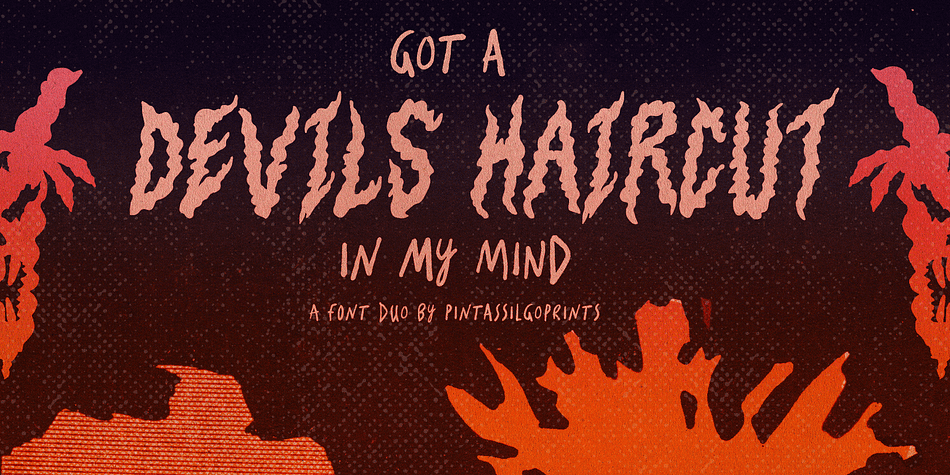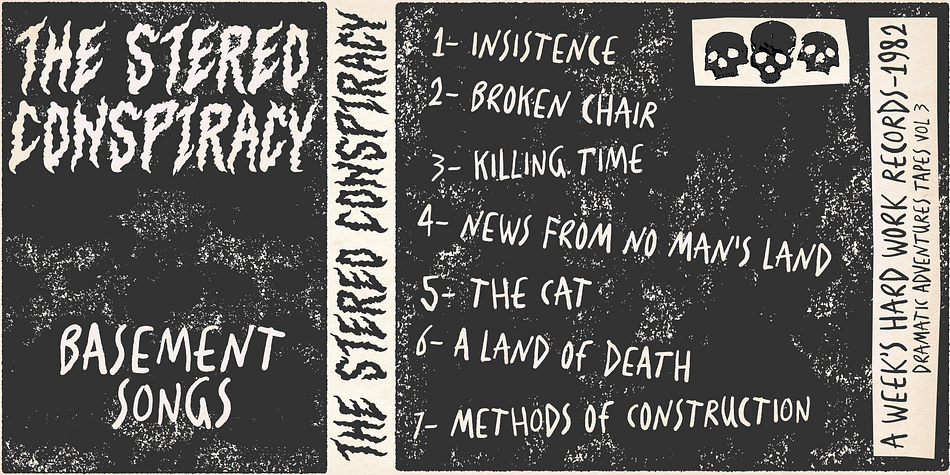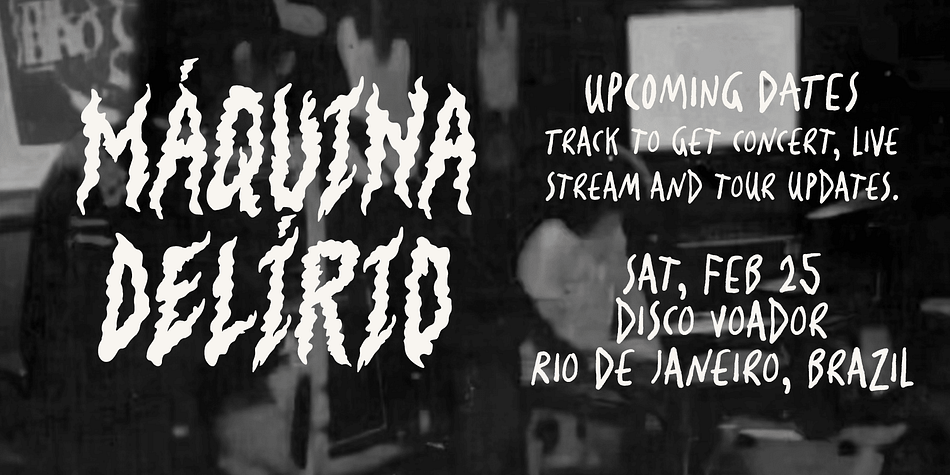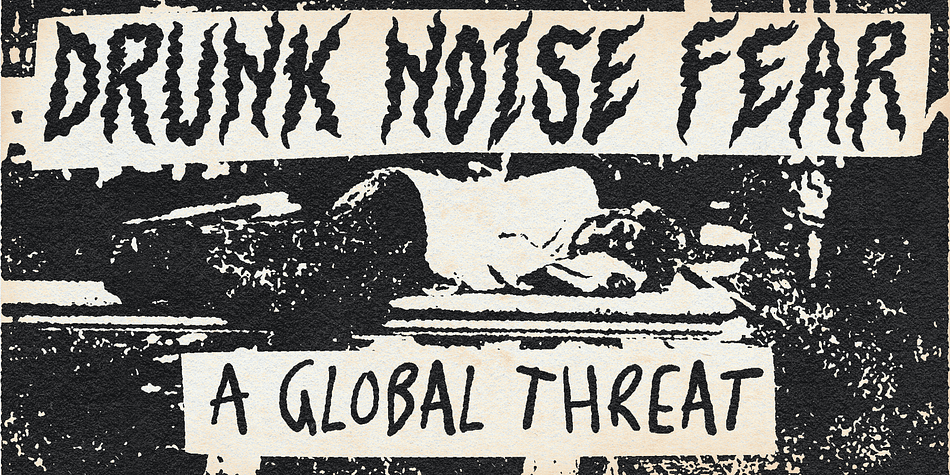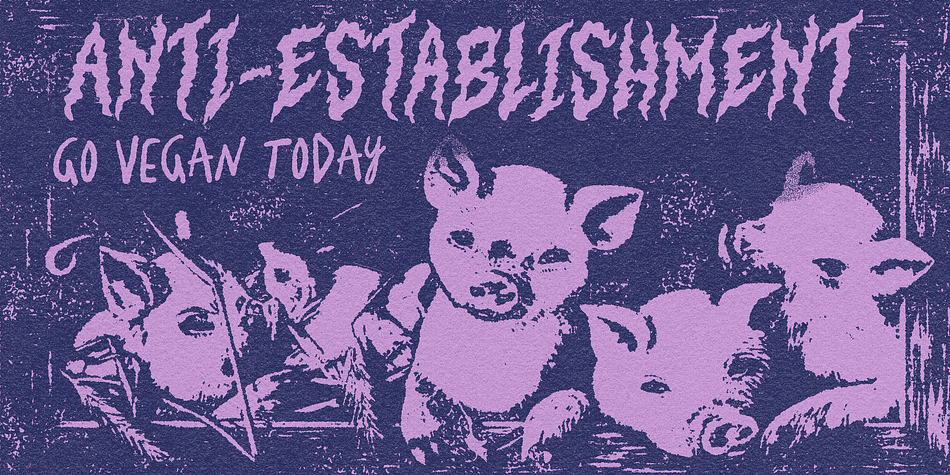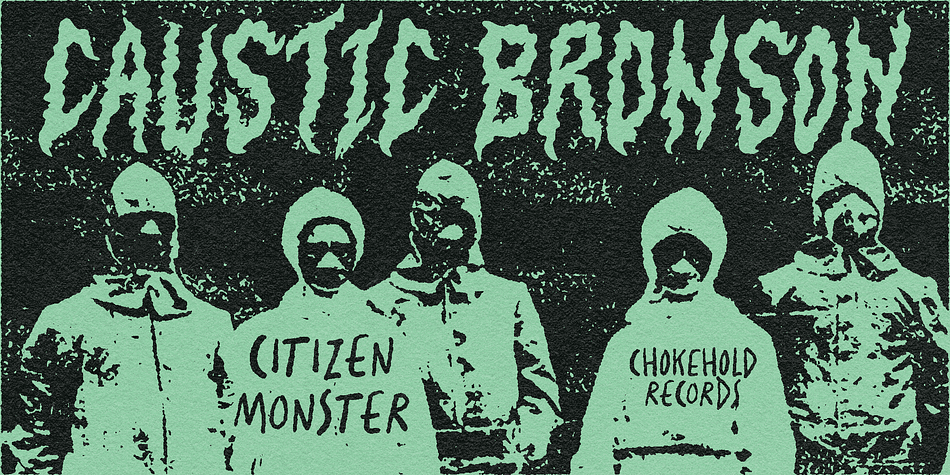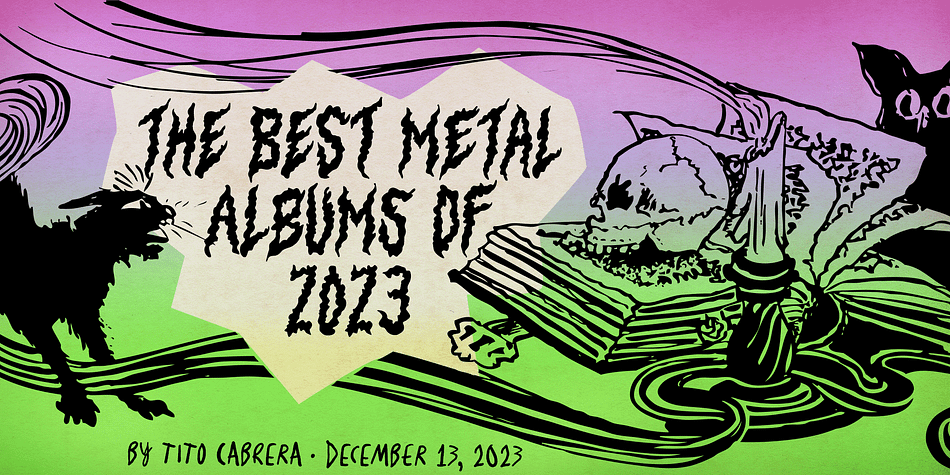
Designed by Ricardo Marcin and Erica Jung, Devils Haircut is a hand display and hand drawn font family. This typeface has two styles and was published by PintassilgoPrints.
Devils Haircut is an explosive font duo, consisting of two completely different styles, creative and expressive in their own way, with a touch of punk and counter-culture aesthetic. Together they make a decidedly eye-catching pair and a rad option for numerous display moods, from album covers to food packaging, from title screens to editorial pages.
Both fonts are all caps with different designs stored on upper- and lower-case slots, so you can reach the alternate forms easily through the keyboard. Or use the Contextual Alternates OpenType feature to instantly cycle the alternate glyphs and get an even more uneven look.